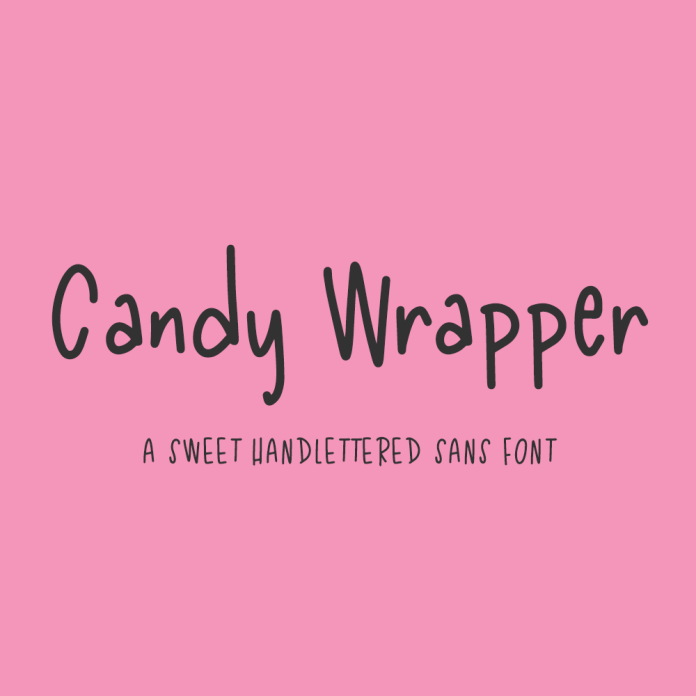
Meet Candy Wrapper Sans, a happy handlettered font. Candy Wrapper is playful, and features a smooth edge making it a great candidate for crafting & vinyl cutting projects! Use in all caps, all lowercase, or mixed to customize your look for your next project!
Candy Wrapper Sans is best for:
- crafting & vinyl cutting projects on your Silhouette machine
- classrooms & teachers, with a childlike handwritten touch
- header elements that need a fun look & feel